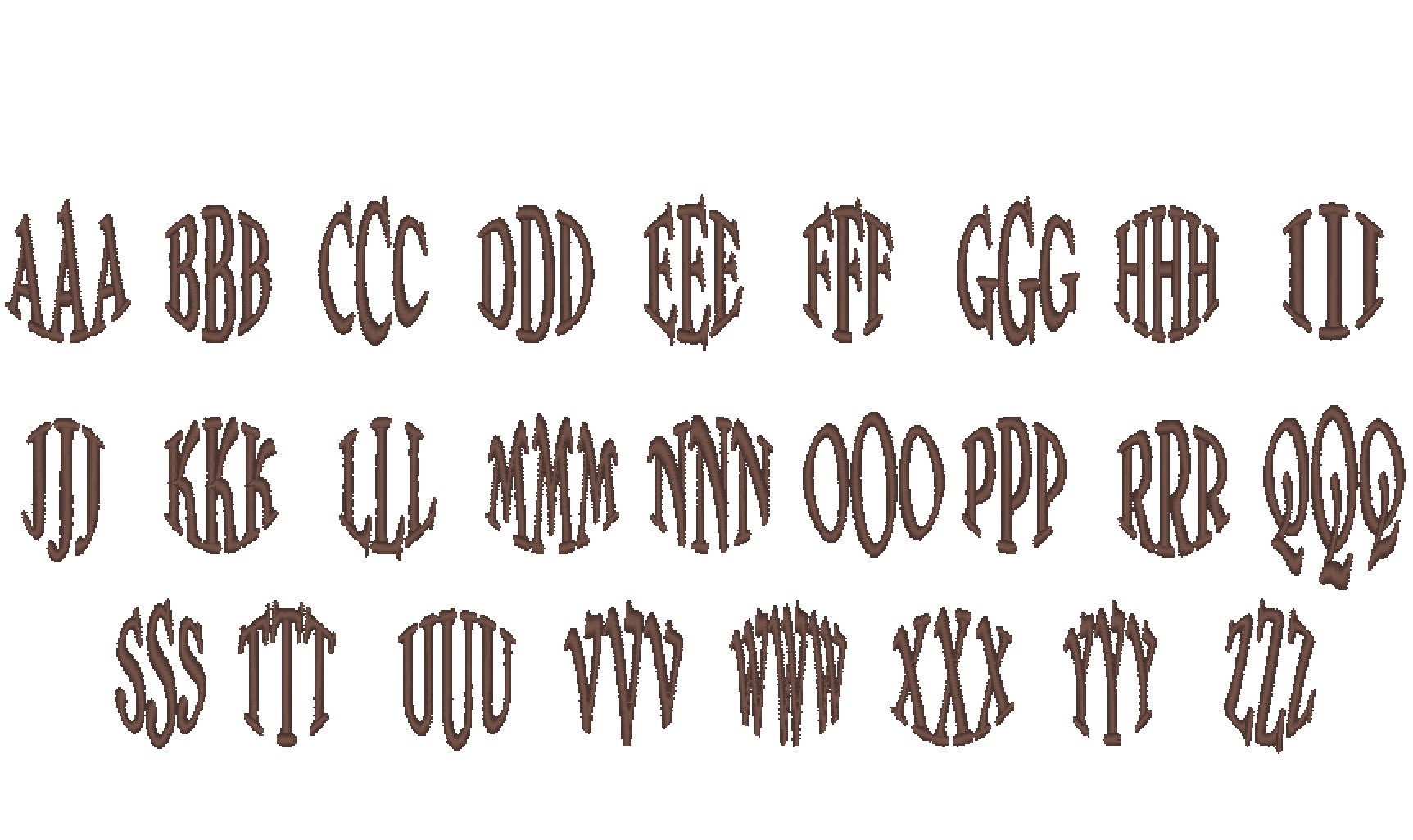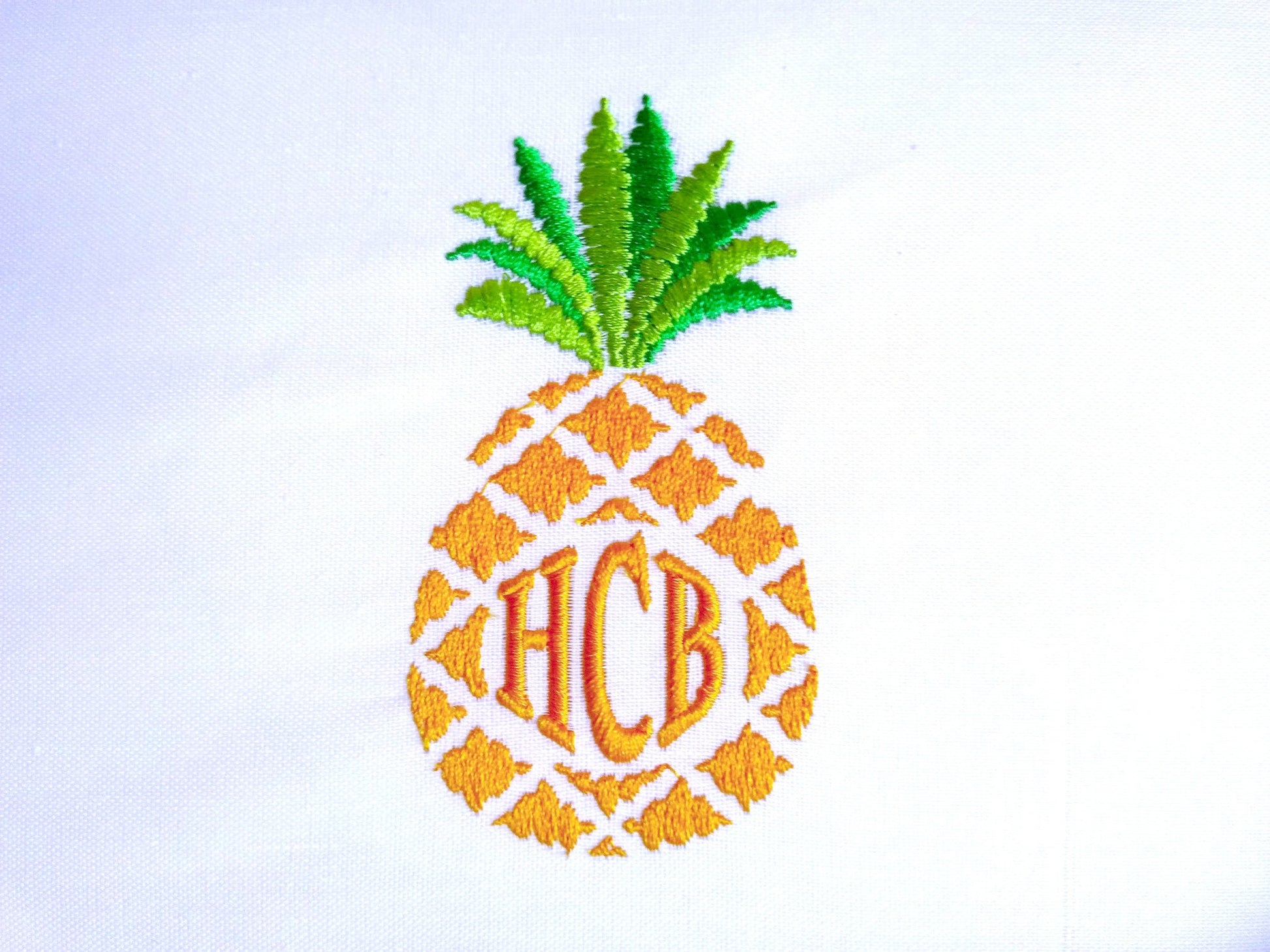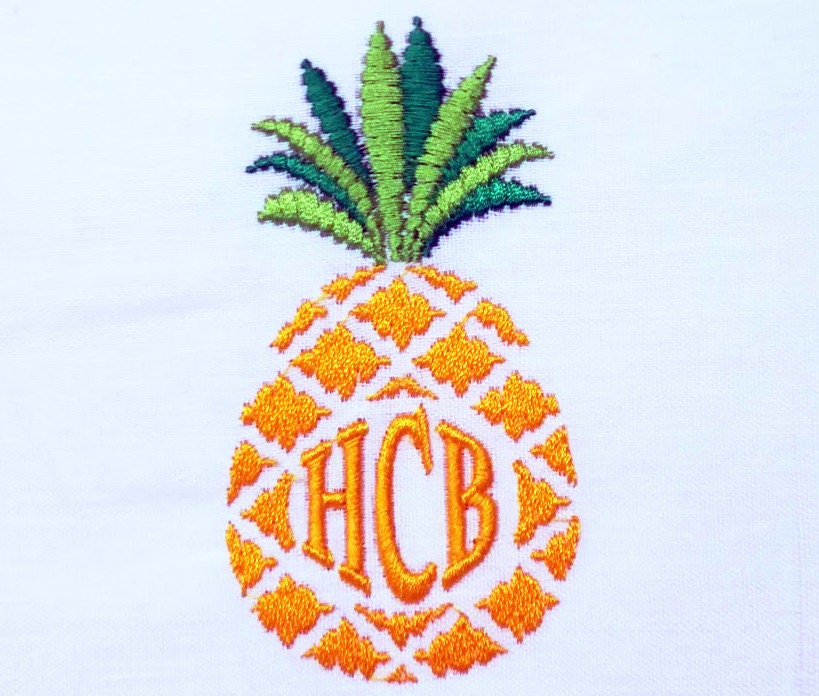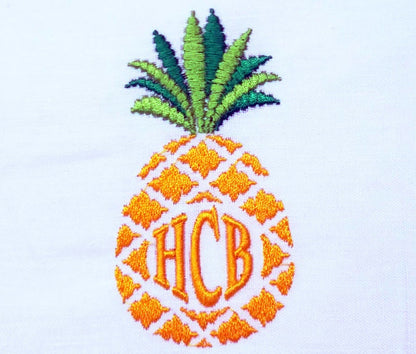
Pineapple and Circle Monogram Font
Pineapple Sizes (inches): 4", 4.5", 5", 5.5", 6", 7"
Font Sizes (inches): 1.1", 1.75", 1.85"
Sizes are measured by whichever side—height or width—is longest. Fonts are measured by the capital letter height.
The monogram set has 78 uppercase letters, left, center and right A to Z, that join into a round three-letter monogram, in 1, 2 and 3 inches. The pineapple is a separate design, so you can stitch it on its own or pair it with the monogram.
- Pineapple design
- 3-letter circle monogram, left, center and right A to Z
- Monogram in 1, 2 and 3 in